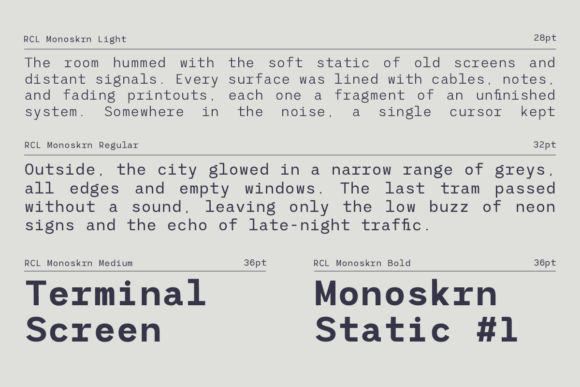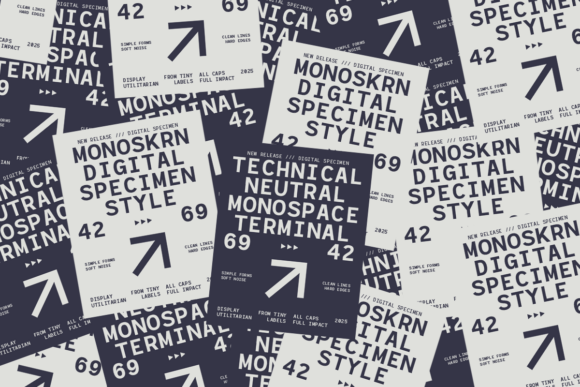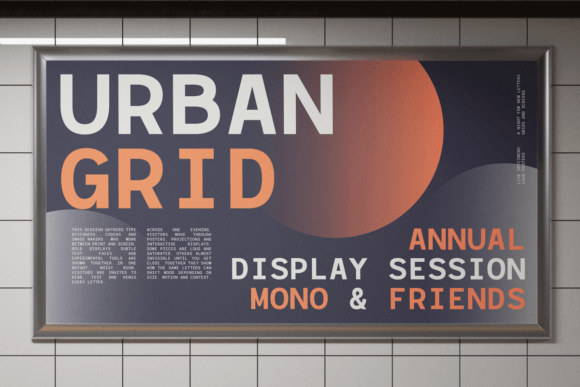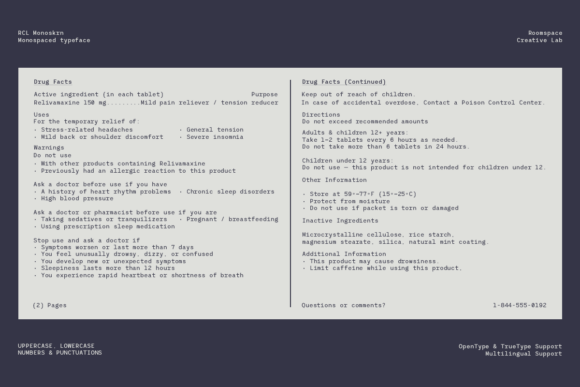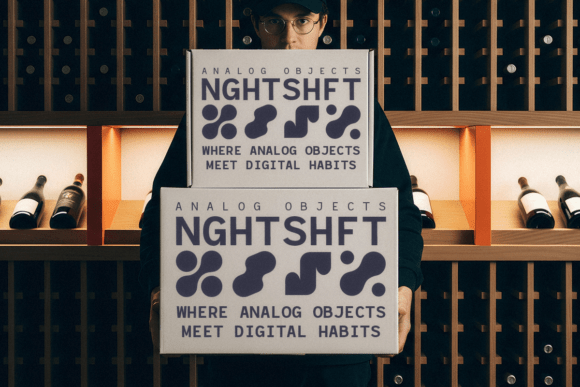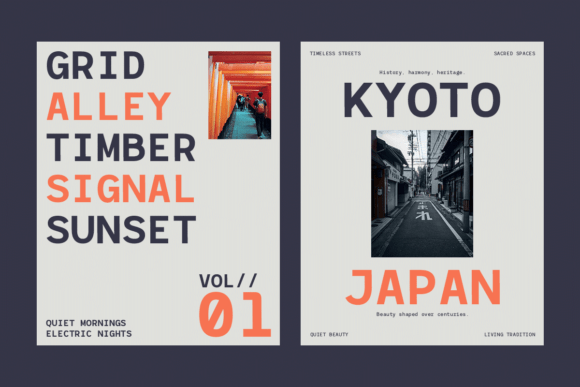
Introduction to Monoskrn Font
As designers, we’ve all been there – staring at a blank canvas, trying to bring our creative vision to life. The perfect font can be the game-changer that elevates our design from good to great. And that’s where the Monoskrn Font comes in – a modern monospaced-inspired typeface that’s about to become your go-to design resource.
With its clean, minimalist aesthetic and highly functional design, the Monoskrn Font is the perfect choice for coding displays, brutalist web design, sci-fi branding, and any project requiring a strong, architectural feel. Its unique visual rhythm, created by consistent spacing, sets it apart from other fonts, making it a valuable addition to your design arsenal.
Key Features of Monoskrn Font
- High-quality design for creative projects, ideal for use in graphic design, digital art, and web design.
- Transparent background, making it perfect for use on images and graphics with complex backgrounds.
- Monoskrn Font is available in a range of sizes, from 12pt to 72pt, allowing for flexibility in design applications.
- Resolution-independent design, ensuring that the font looks great at any resolution, from low to high DPI.
- Unique, modern design aesthetic that is perfect for adding a touch of creativity to any design project.
Honest Review: Monoskrn Font
I recently came across the Monoskrn Font while searching for a high-quality design resource for a creative project. The initial impression was quite promising, and I must say it did not disappoint.
What works well is the clean and minimalist design aesthetic that Monoskrn Font offers. The transparent background makes it an excellent choice for any design that requires a subtle and unobtrusive font. Additionally, the fact that it’s available for free download is a definite plus, especially for indie designers and small businesses.
Here are some key features that stood out to me:
- Works well with a variety of design styles and themes
- ⚠️ Limited font styles and variations, which may not be suitable for complex design projects
Overall, I’m impressed with the Monoskrn Font and would recommend it to designers looking for a high-quality, free design resource. While it may not be perfect, it’s a great addition to any design toolkit.
Getting the Most Out of Monoskrn Font
For the best results, use Monoskrn Font in conjunction with other high-quality design elements. Experiment with different font sizes, colors, and styles to create a visually appealing design. You can also use Monoskrn Font on a transparent background to add depth and dimension to your design.
Monoskrn Font is a versatile design resource that can be used in a variety of creative projects, including business presentations, marketing materials, and social media graphics. Its transparent background makes it ideal for use on images or videos, and its high-quality design ensures a professional finish every time.